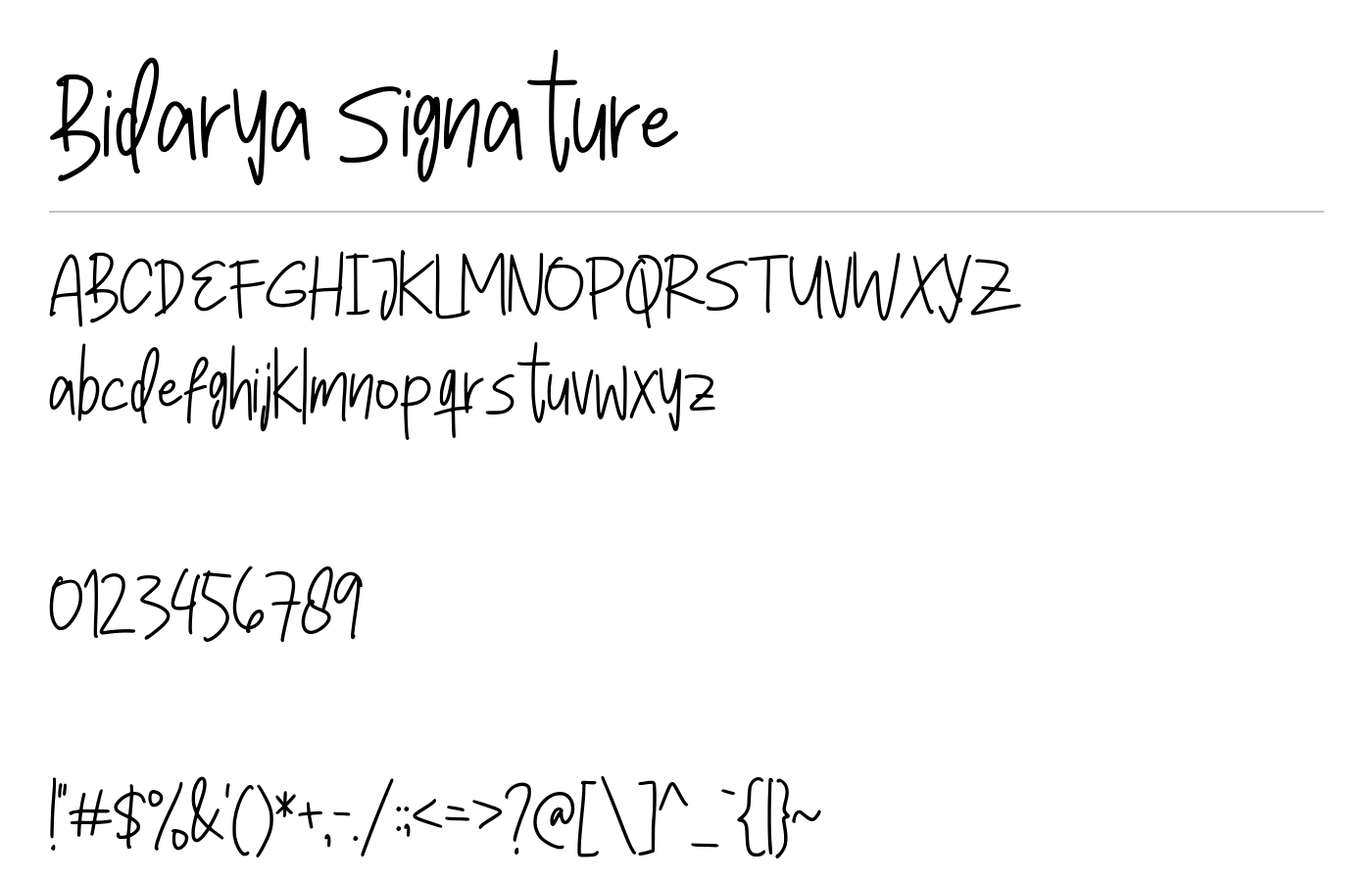
Bidarya Signature Font is a casual, handwritten script with a light and airy feel, featuring tall, narrow letterforms and consistent stroke weight that evokes a personal, friendly vibe. Its playful yet clean style makes it ideal for branding, invitations, and creative projects where a modern and approachable handwritten touch is desired. This font works well for logos, social media graphics, and headlines that benefit from an authentic, hand-crafted appearance.
Bidarya Signature Font
About Bidarya Signature Font
| Font family | Bidarya Signature Font |
| Designer | Feriferiyal_Executypestd_M.zidan |